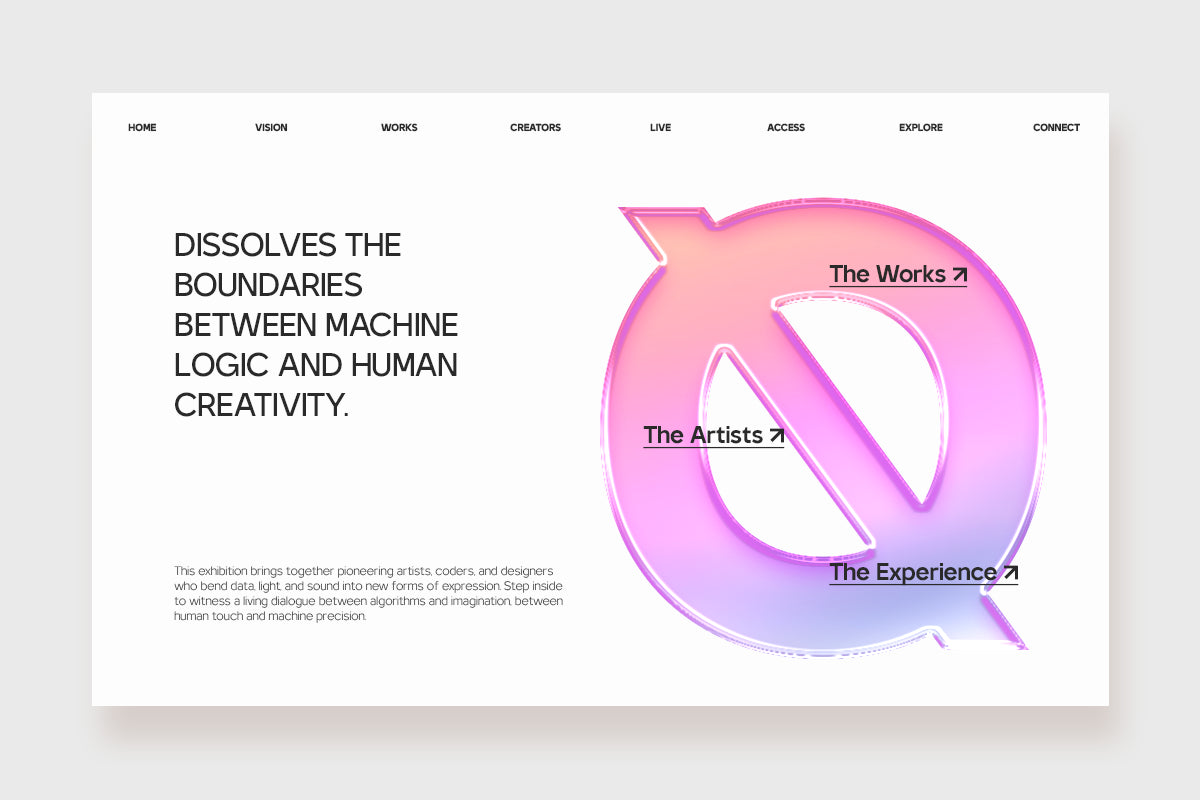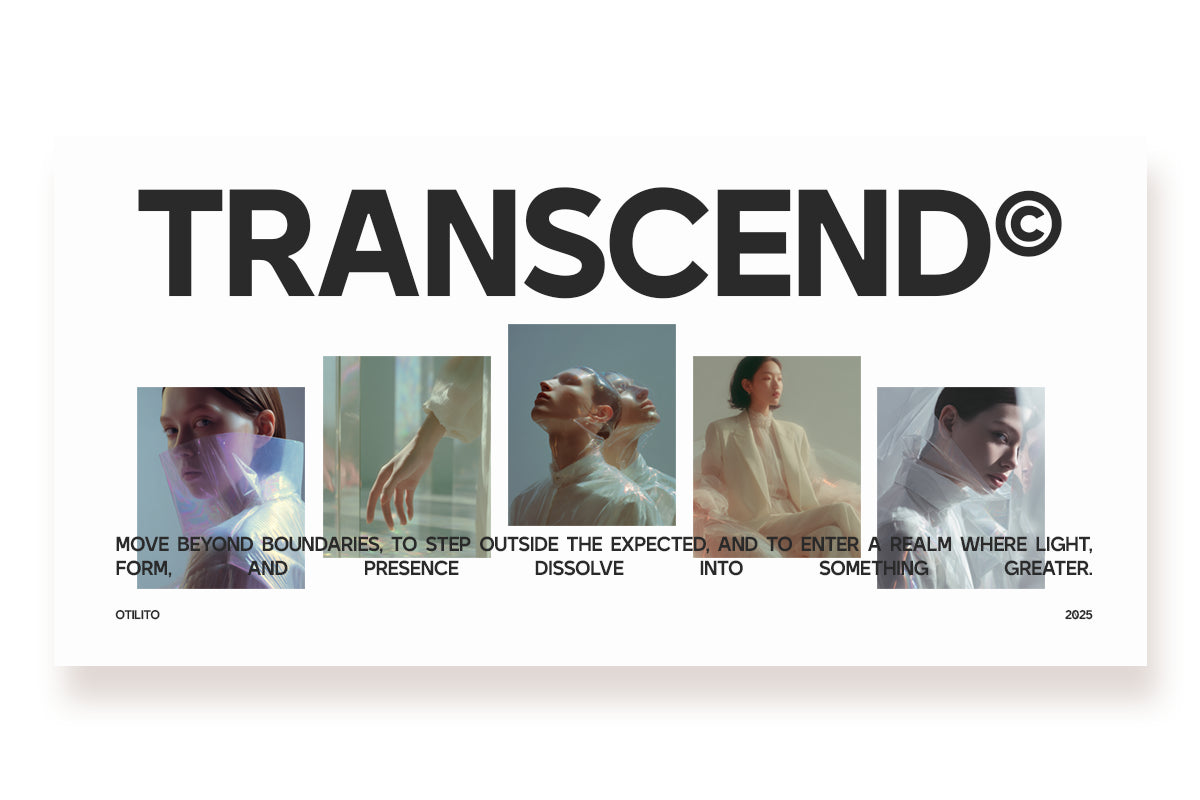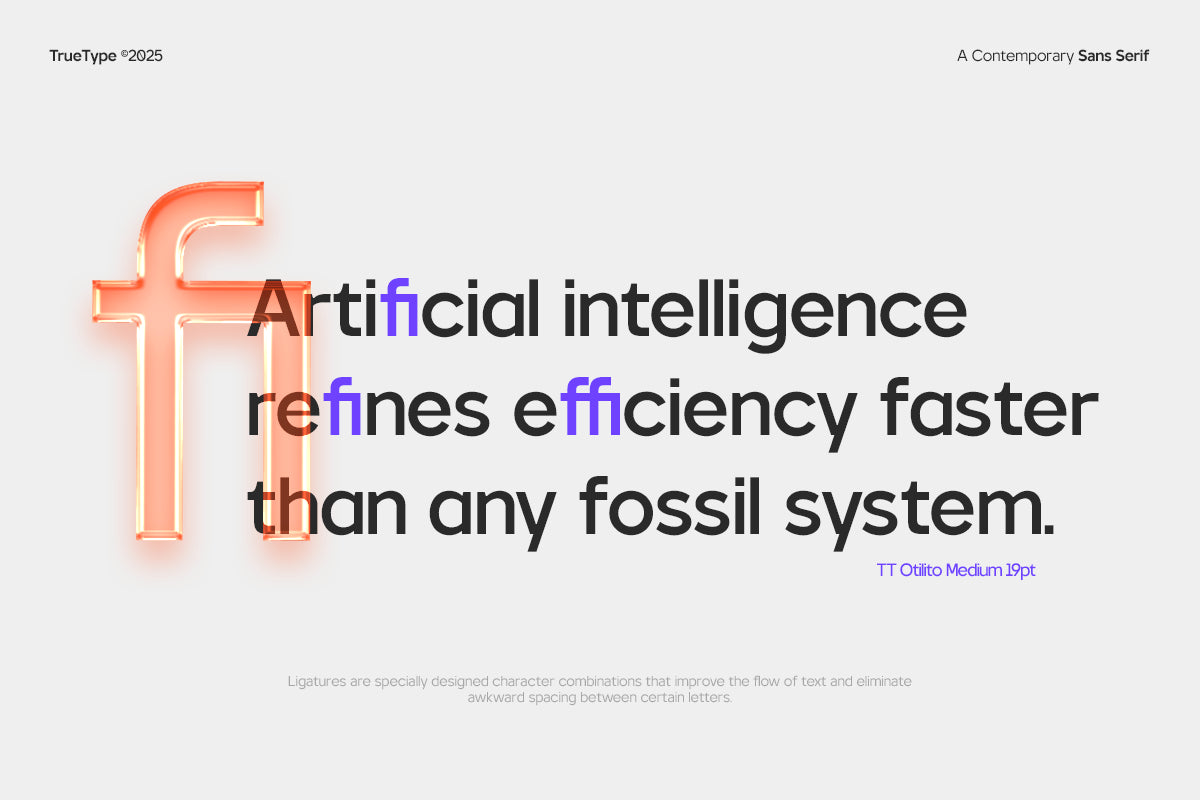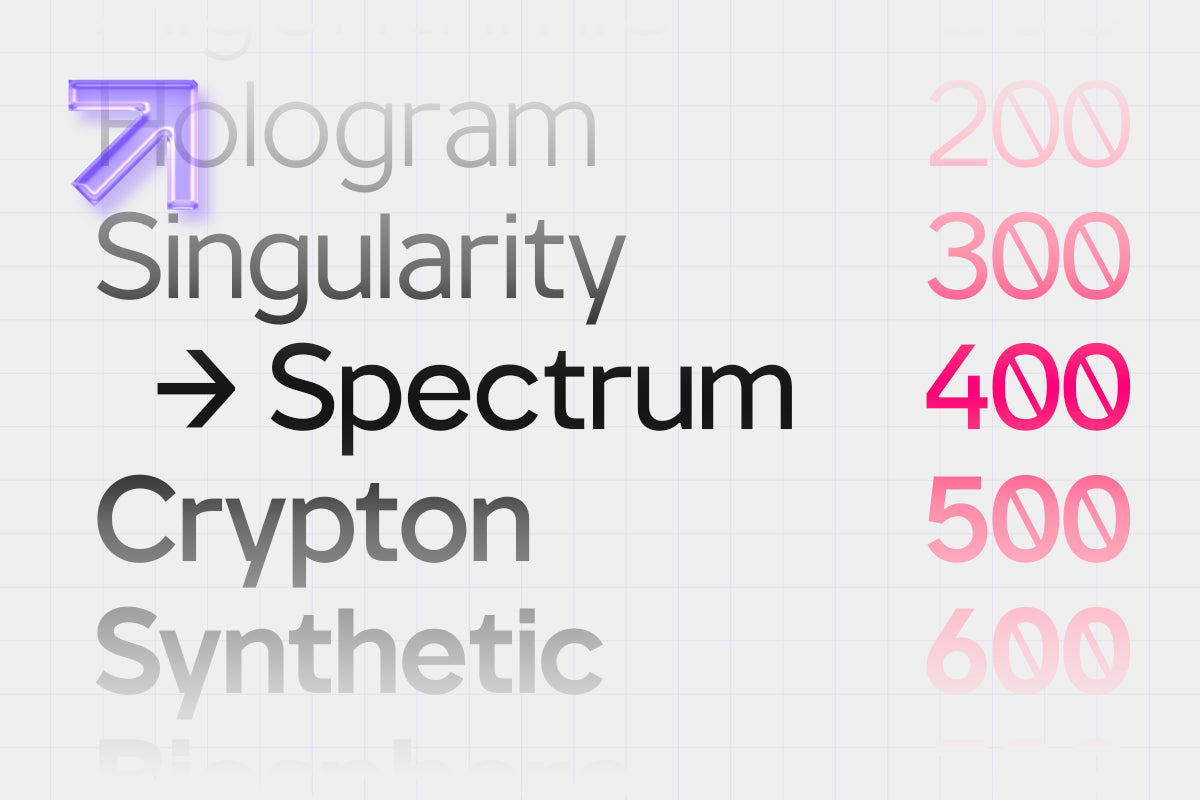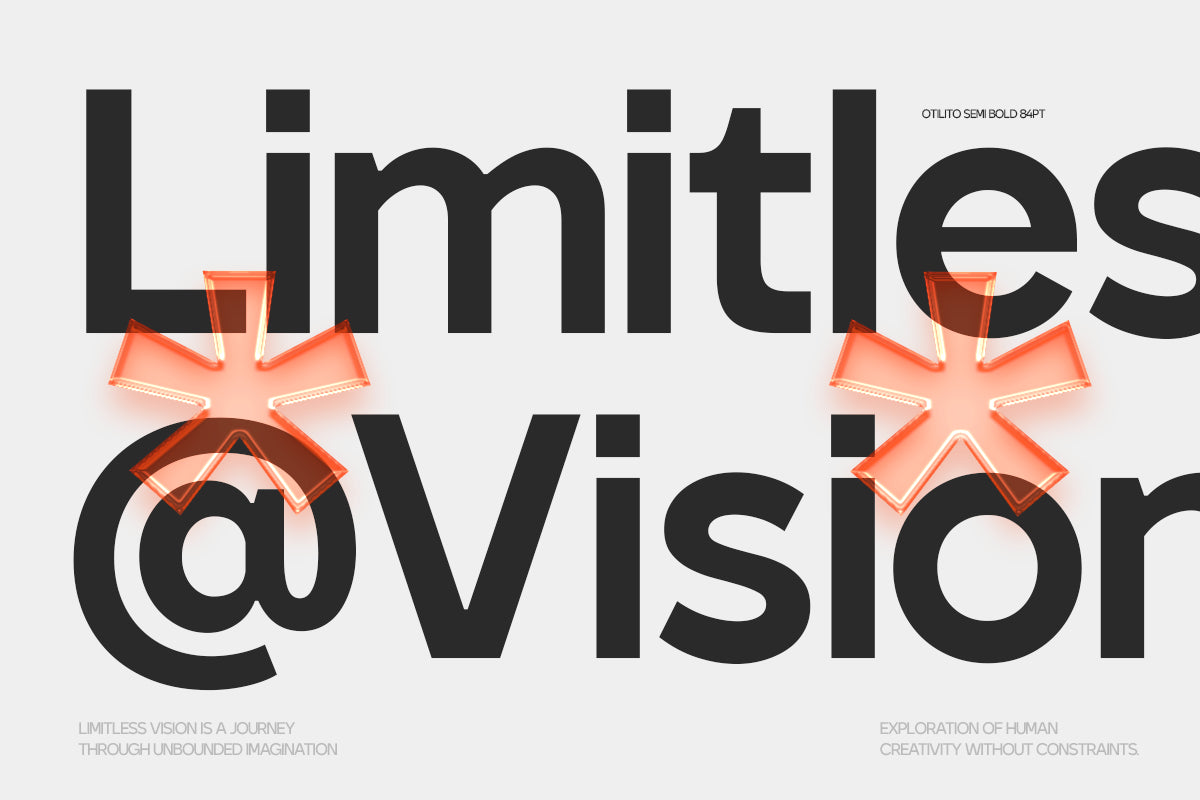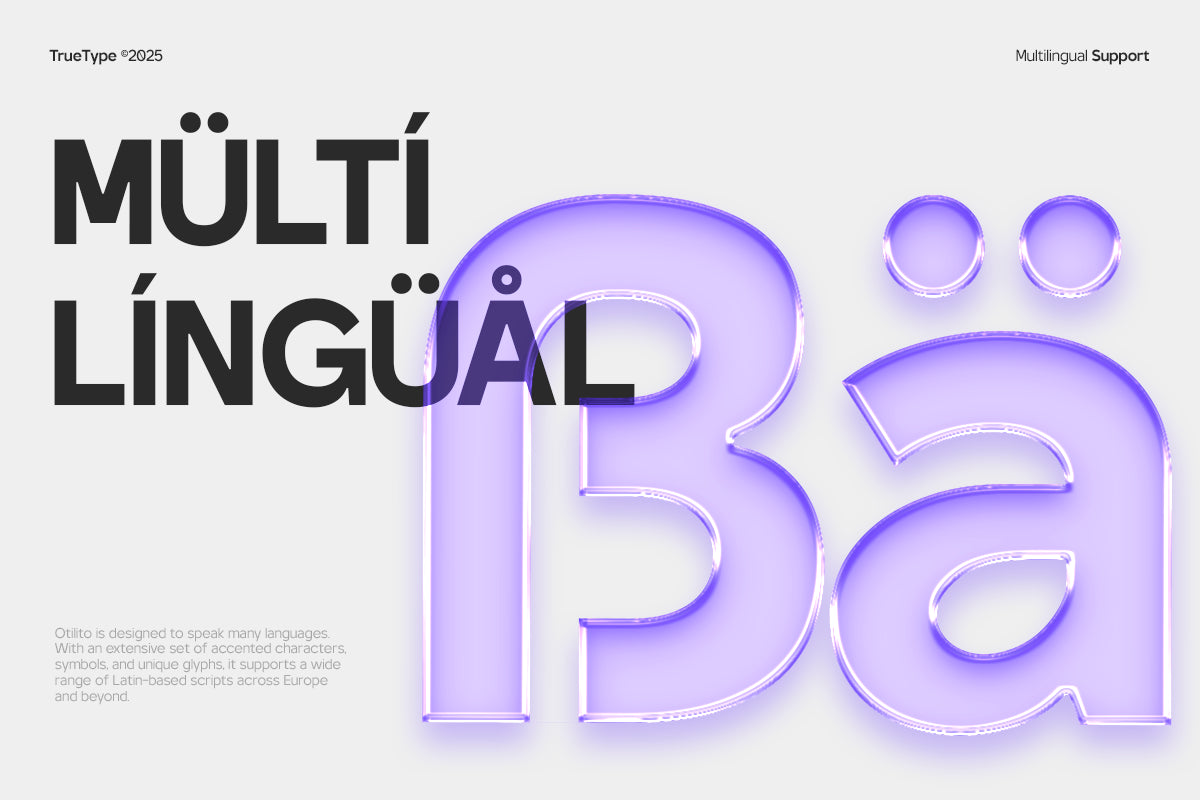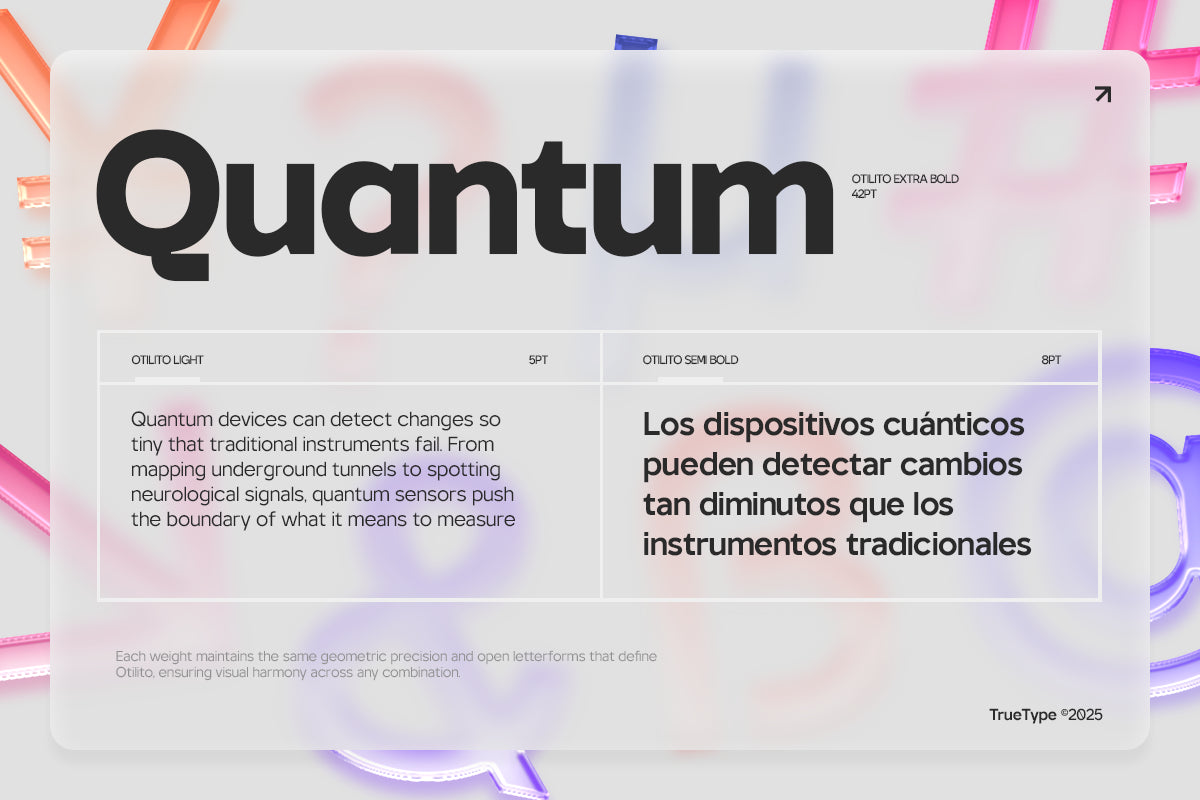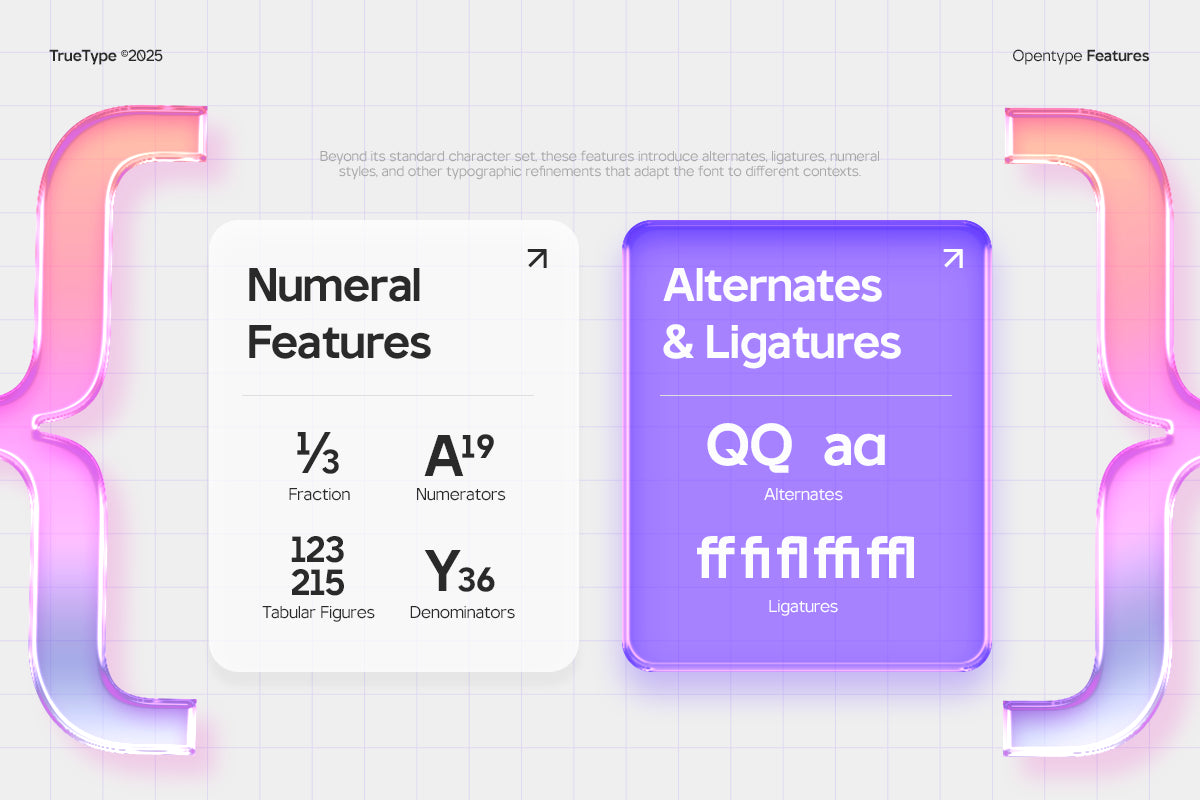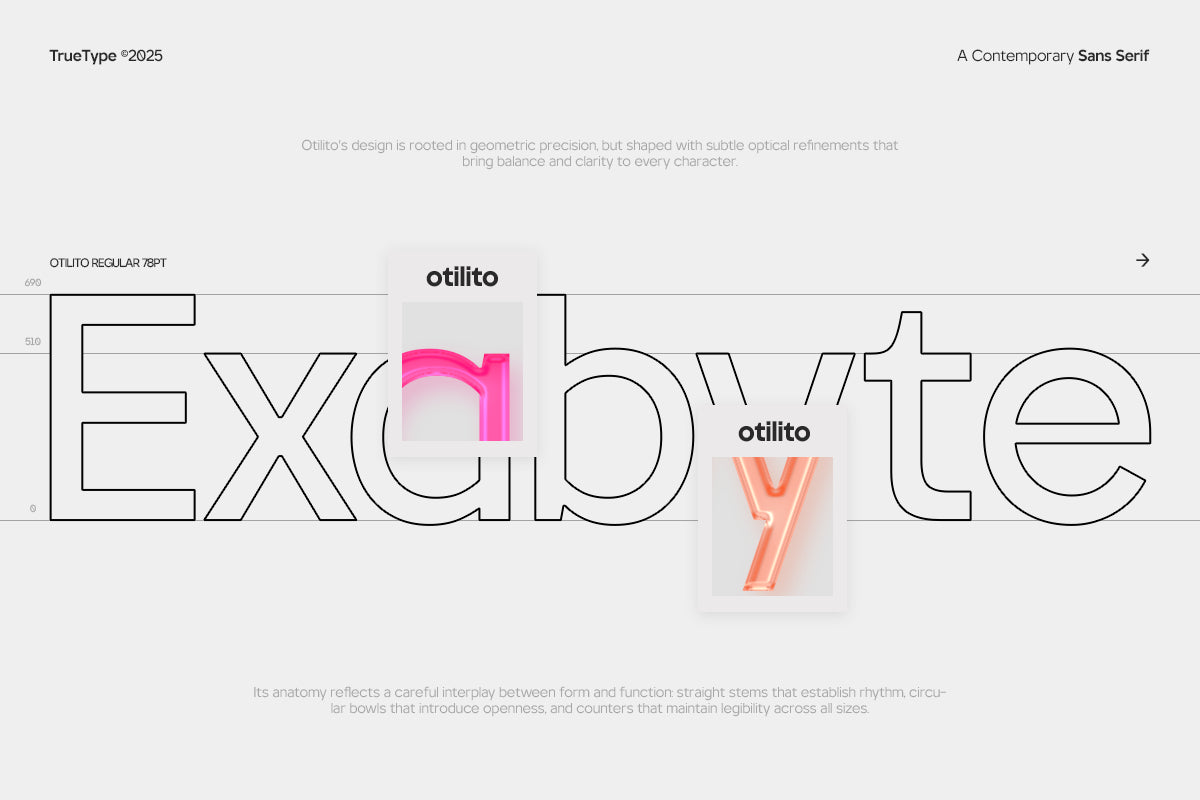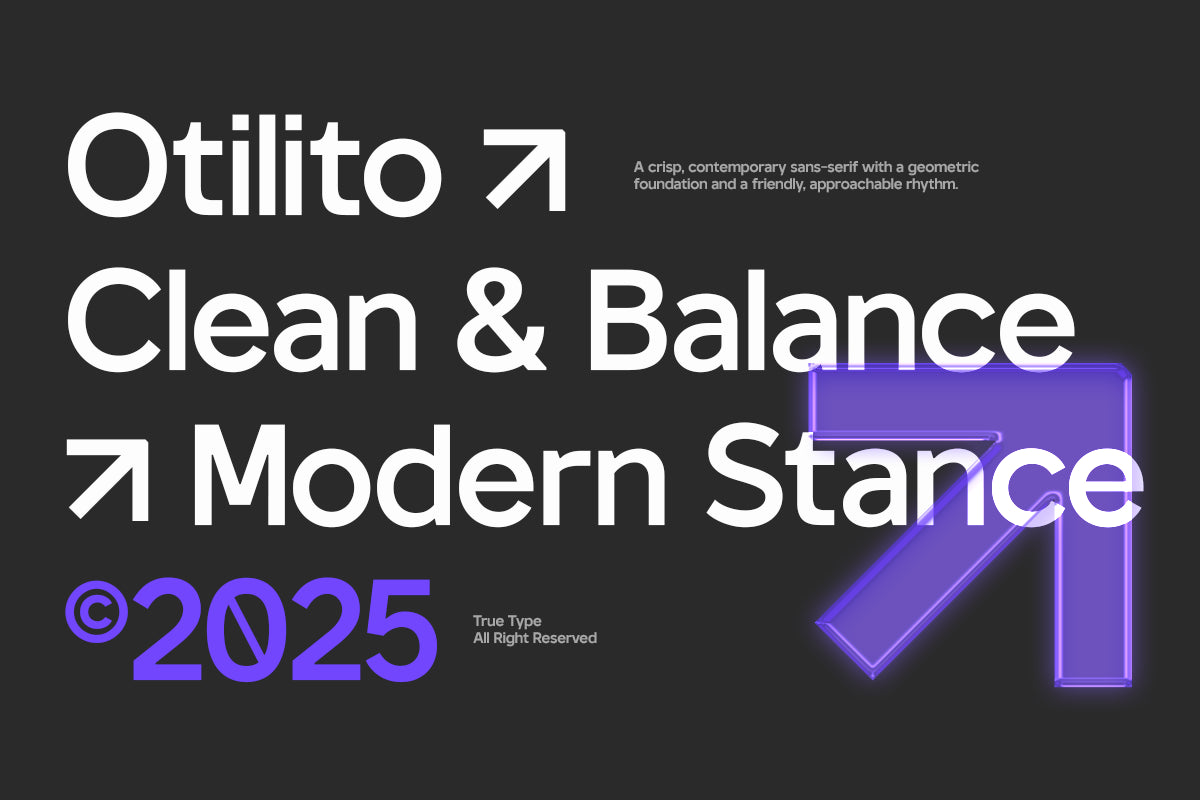
TRT Otilito – Sans Font Family
TRT Otilito is a modern sans serif typeface characterized by semi-grotesque features, offering a clean and functional design with geometric balance and unique quirks. This versatile font family includes multiple weights and styles, making it suitable for various design applications.